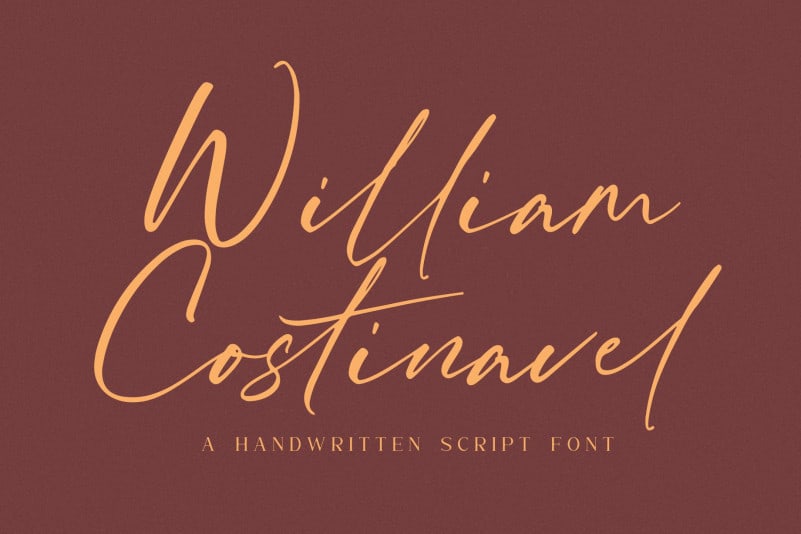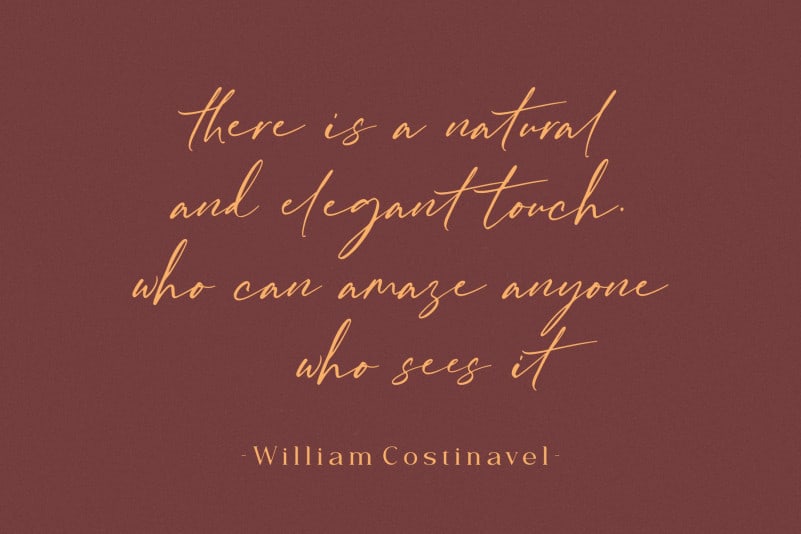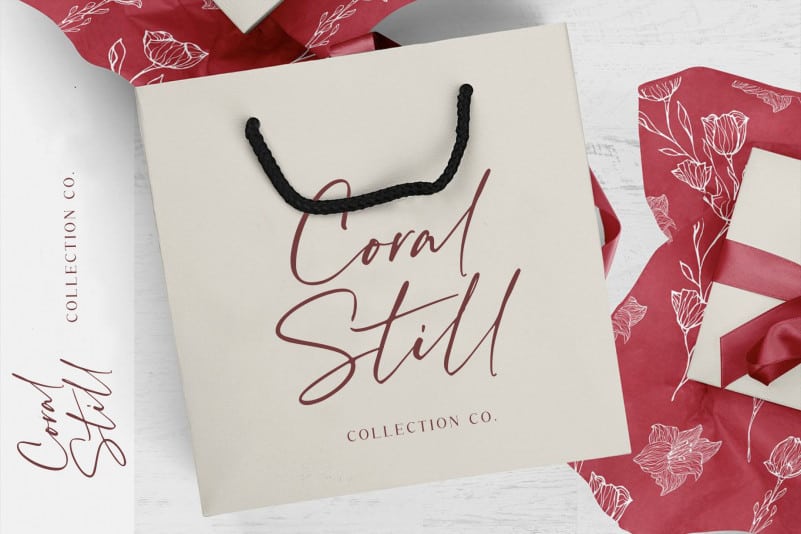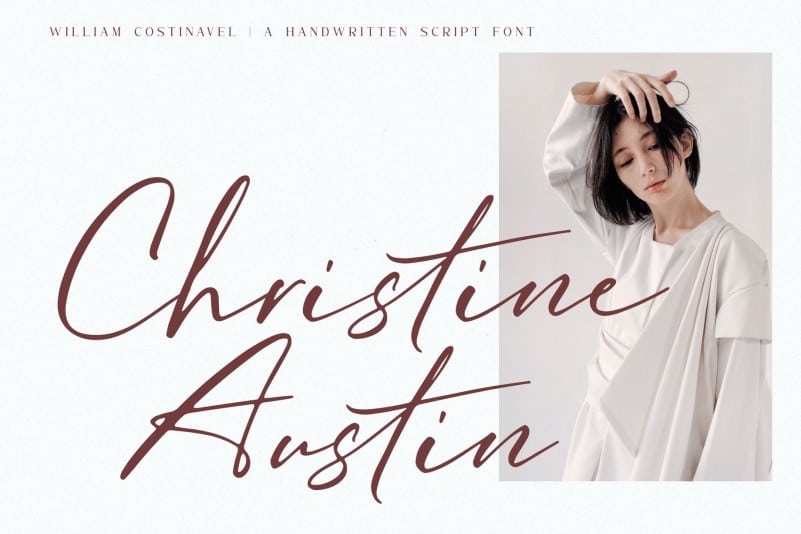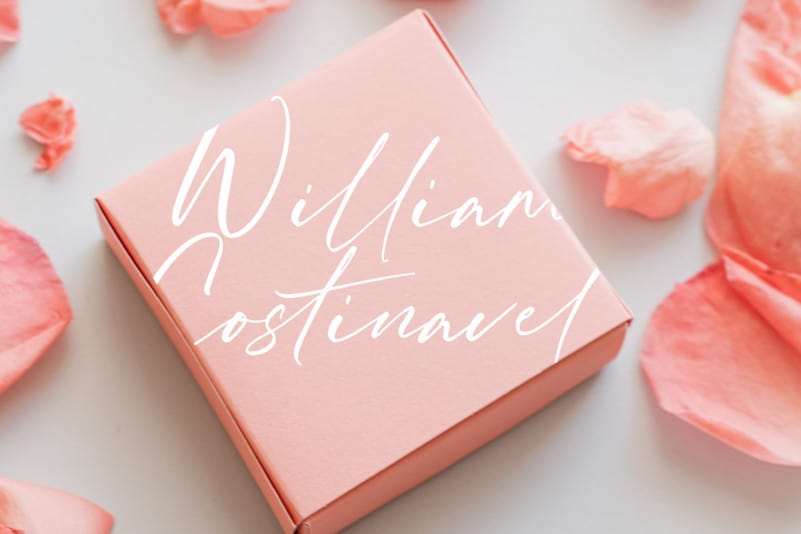
William Costinavel Handwritten Font
William Costinavel Handwritten Font. Made from natural pen.
it will make your design project more beautiful.
The font is suitable for any design like branding, fashion,
print template, quotes, wedding and etc.